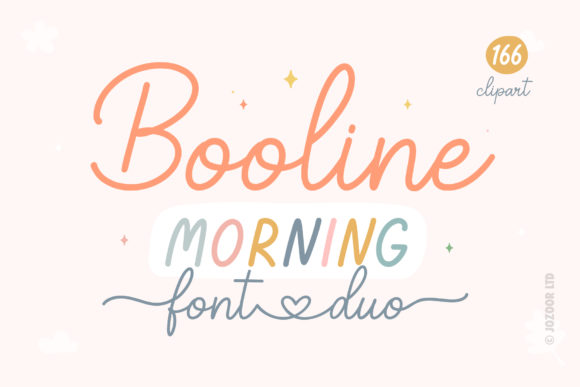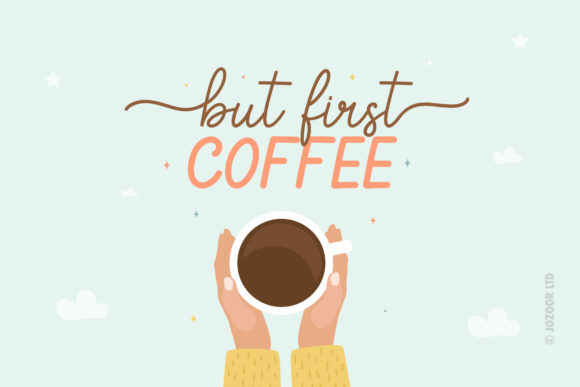
Booline Morning Font
Booline Morning is a duo-styled handwritten hearted font. It feels equally charming and delicate, ideal for wedding invitations, save the date cards, fine art papery, feminine branding, personal gift cards and any other romantic projects.